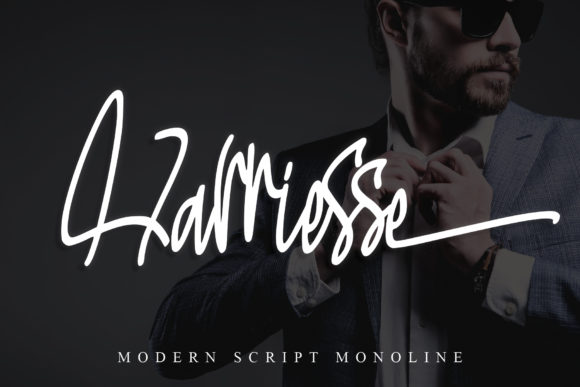
Journey into a world of unparalleled grace and elegance with Harriesse Font, a modern script that captivates hearts with its enchanting allure. Born from the creative genius of thomasaradea, Harriesse is not merely a font; it's an artistic masterpiece that breathes life into your digital creations. With its captivating swashes and harmonious ligatures, Harriesse possesses an unmatched versatility, effortlessly adapting to a myriad of projects, from the vibrant realm of Instagram to the cherished moments of handwritten calligraphy.
Step into a world of limitless possibilities, where every letter dances with a lyrical rhythm, each stroke imbued with a profound emotional depth. Harriesse transforms your creative visions into tangible works of art, turning ordinary words into breathtaking expressions of beauty. Whether you're crafting heartfelt messages for loved ones or designing captivating social media posts, Harriesse elevates your words, making them resonate with a power that captivates and compels.
Immerse yourself in the world of Harriesse, and let your imagination soar. Allow the graceful curves and delicate flourishes to transport you to a realm where creativity knows no bounds. Your projects will radiate with an aura of sophistication and charm, leaving a lasting impression on all who behold them. Harriesse is more than just a font; it's an emblem of artistry, a symbol of your unique style and discerning taste.